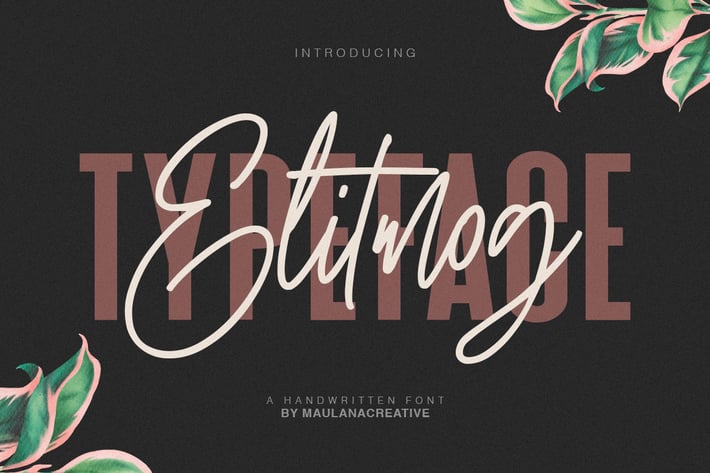
Elitmog Signature Font
Give your designs an authentic handcrafted feel. "Elitmog" is perfectly suited to signature, stationery, logo, typography quotes, magazine or book cover, website header, flyer, clothing, branding, packaging design and more.